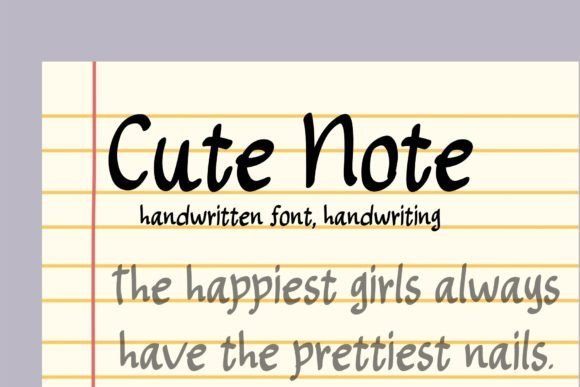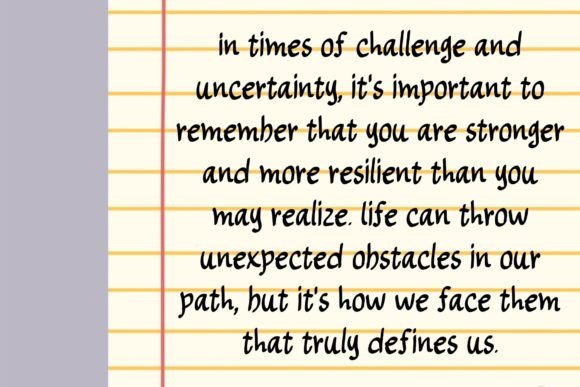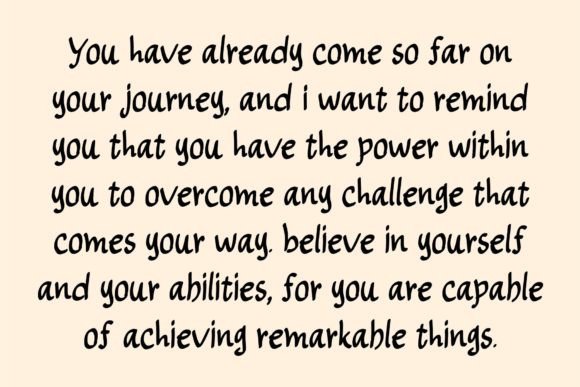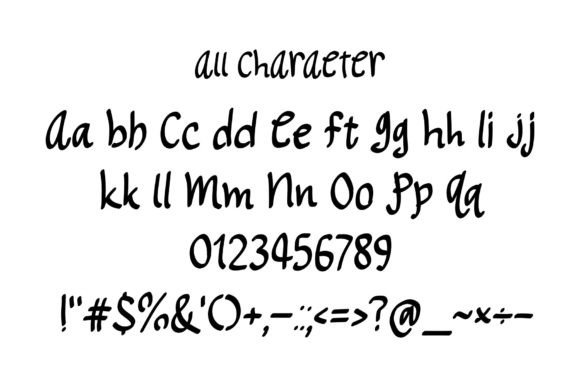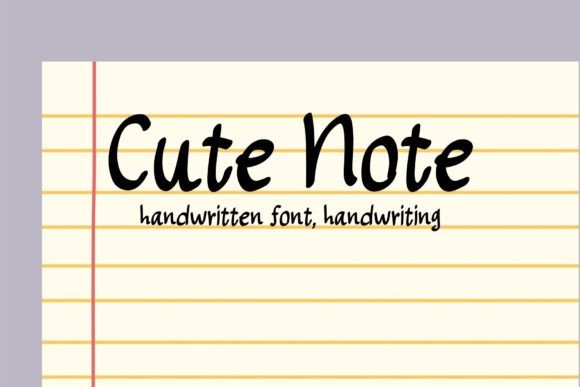
The Perfect Font for a Handwritten Touch
Remember the last time you received a handwritten note from a loved one? The way it made you feel, like you were the only person in the world, and the extra love that came with every scribble and stroke. We’ve all been there, and it’s moments like these that make us crave that same warmth and sincerity in our designs.
Enter Cute Note Font, the perfect solution for adding a touch of playfulness and charm to your designs. This adorable handwritten font is filled with cute and quirky characters that will bring a smile to anyone’s face. Whether you’re creating greeting cards, invitations, or personalized notes, Cute Note Font will add a delightful touch to your messages, making it a valuable addition to any designer’s toolkit.
With its smooth and flowing letterforms, Cute Note Font captures the essence of handwritten notes, making it ideal for conveying warmth and sincerity. So why not spread joy and cuteness with Cute Note Font, the go-to font for all your whimsical design needs?
Cute Note Font Key Features
- Font Family: Cute Note Font is a unique, handwritten font designed to resemble handwritten notes.
- Character Set: The font includes a wide range of characters, including uppercase and lowercase letters, numbers, and punctuation marks.
- Unique Characteristics: Features a playful, handwritten style with subtle imperfections, giving it a personal and touchable feel.
- Style Variations: Includes multiple style variations, such as Regular, Italic, Bold, and Bold Italic, to add versatility to designs.
Cute Note Font Review
Overall, I think Cute Note Font is a cute and endearing font that’s perfect for creating a playful atmosphere in digital products, particularly in the realms of education and social media.
- ✨ The font is playful and eye-catching, making it ideal for capturing attention and creating a lighthearted mood.
- ✨ It’s highly legible, even at smaller font sizes, making it suitable for digital applications where text needs to be easily readable.
- ✨ The font is highly customizable, allowing designers to adjust the color, size, and other parameters to suit their design needs.
- ⚠️ The font may not be suitable for formal or professional applications due to its playful and childish nature.
- ⚠️ It may not be the best choice for body text, as it can become overwhelming and tiring to read in large quantities.
- ⚠️ Some users may find the font too whimsical or cutesy, which may not appeal to their design preferences.
Cute Note Font is a delightful and engaging font that can add a touch of personality to digital products. While it may not be suitable for all design applications, it’s a great choice for designers looking to create a lighthearted and playful atmosphere.
Some common use cases for Cute Note Font include:
– Creating cute and playful invitations or cards.
– Designing social media graphics or posts.
– Adding a touch of whimsy to presentations or reports.
Some tips for getting the most out of Cute Note Font include:
– Experimenting with different font sizes and colors to create contrast and visual interest.
– Combining Cute Note Font with other playful fonts or graphics for a unique look.
Alternatives to Cute Note Font for Designers
Lobster Font is a casual, cursive script font that is perfect for creating a playful and whimsical atmosphere. It is ideal for use in logos, advertisements, and social media posts where a touch of personality is needed. Lobster Font has a similar feel to Cute Note Font, but with a more elegant and refined appearance.
Pacifico Font is a beautiful, handwritten script font that is reminiscent of beachy vibes. It is perfect for use in branding, packaging, and digital design where a sense of relaxation and calmness is desired. Pacifico Font has a more organic and natural feel compared to Cute Note Font, making it ideal for designs that require a sense of authenticity.